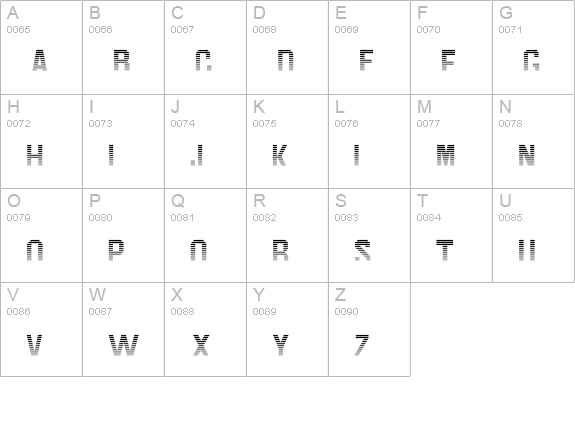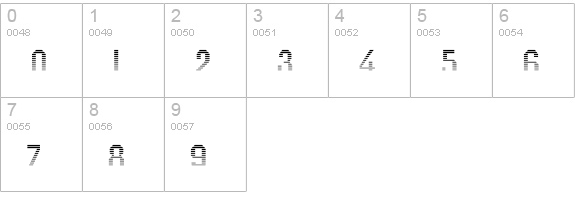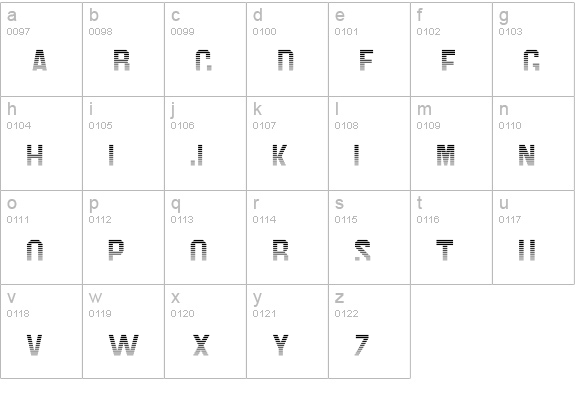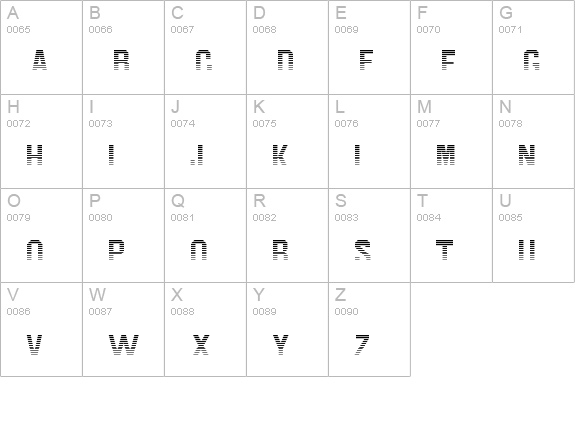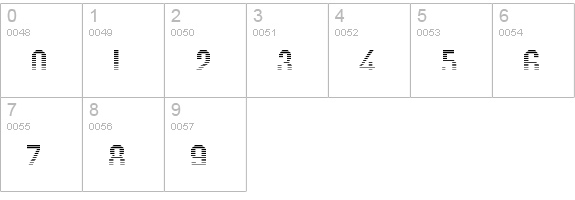
Jim DandyShading font is a delightful and whimsical typeface that adds a touch of playfulness to any design project. With its unique shading effect, this font is perfect for creating eye-catching headlines, posters, and more. It exudes a sense of fun and creativity that will surely captivate your audience. Best of all, Jim DandyShading font is completely free to use! You can easily download this font at FontsMarket.com, where you will find a wide range of other high-quality fonts to enhance your creative projects. Don't miss out on the opportunity to add a touch of charm and character to your designs with Jim DandyShading font. Download it today and let your imagination run wild!